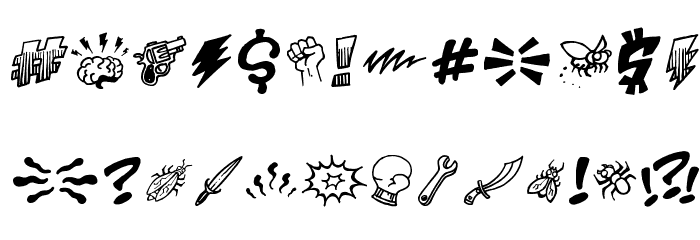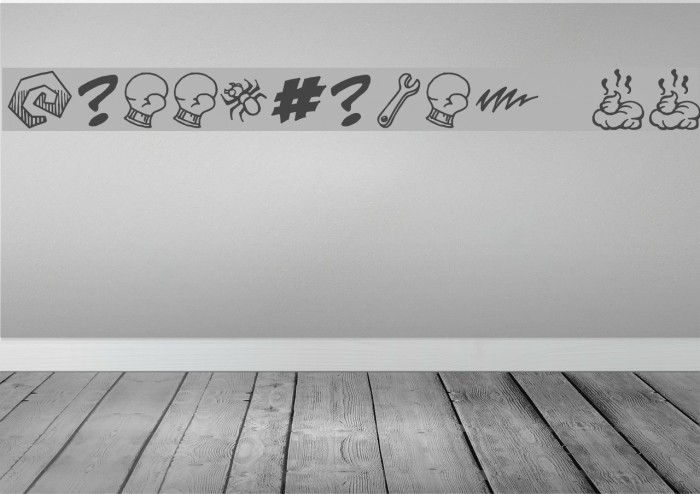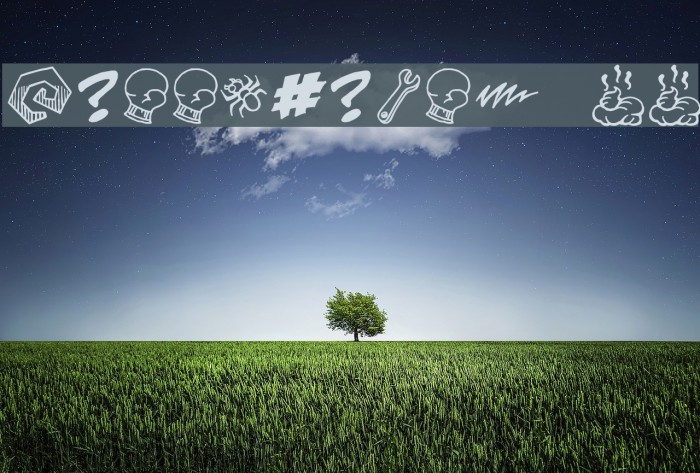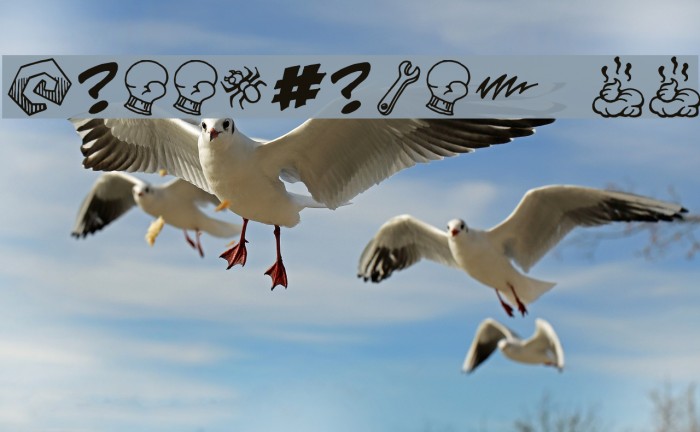
PottyMouth BB Font
This font is a playful and expressive collection of cartoon-style symbols and illustrations. It features a variety of quirky and dynamic images, including skulls, explosions, lightning bolts, and other comic-inspired graphics. The characters are bold and exaggerated, with thick lines and high contrast, making them stand out vividly. The style is reminiscent of comic book art, with a fun and rebellious edge. This font is perfect for adding a touch of humor and personality to any project, with its unique and eye-catching designs.
A bold, comic-style font with playful and expressive symbols.
- Font: PottyMouth BB
- Proposed Projects: Ideal for comic books, graphic novels, posters, and playful branding materials.
- Use Case: Logos, Posters, Comic Books